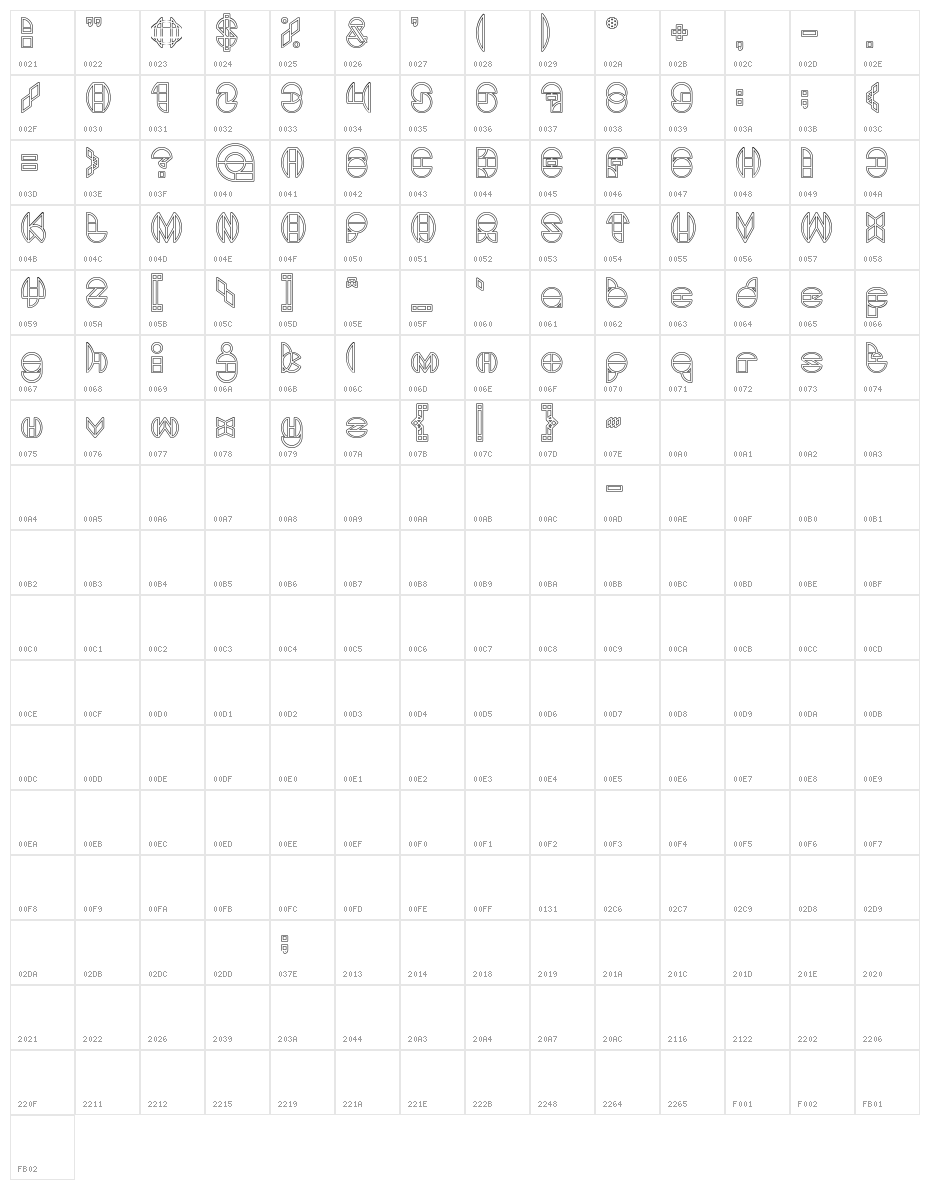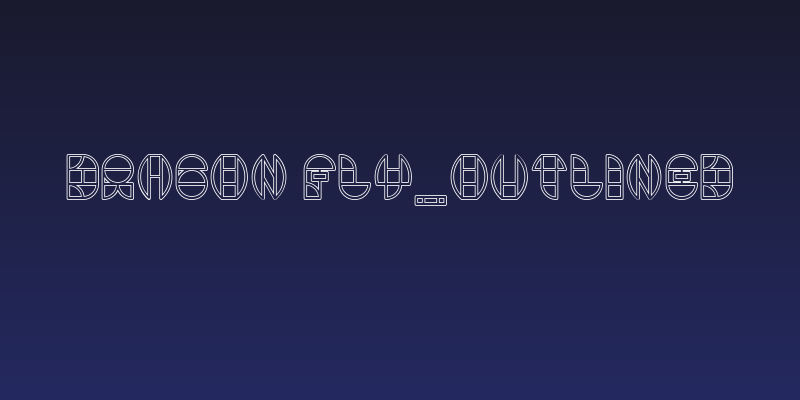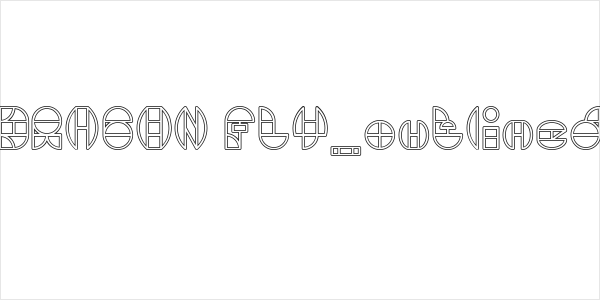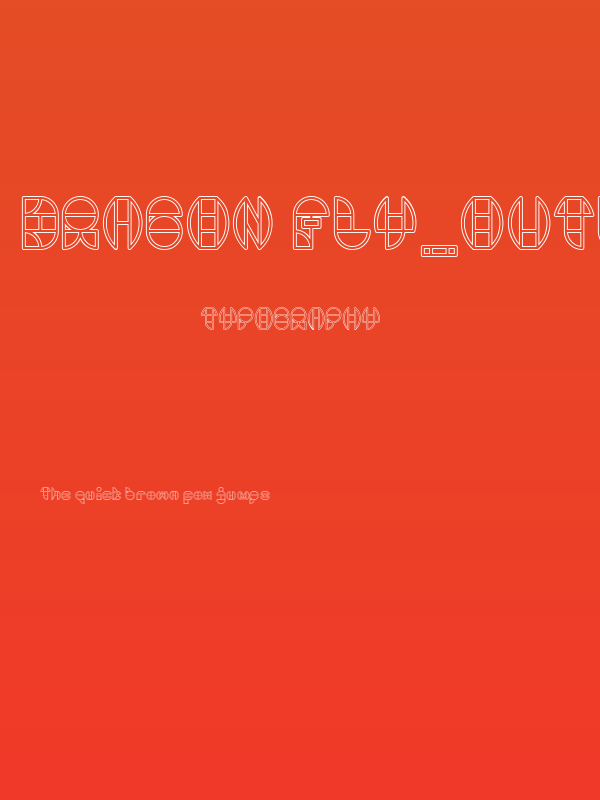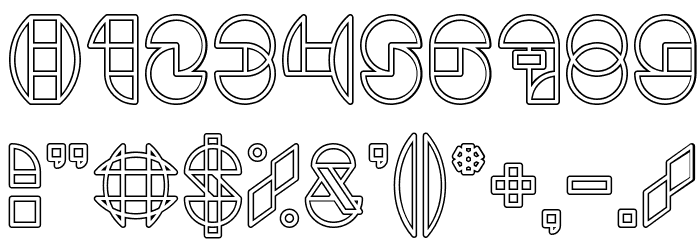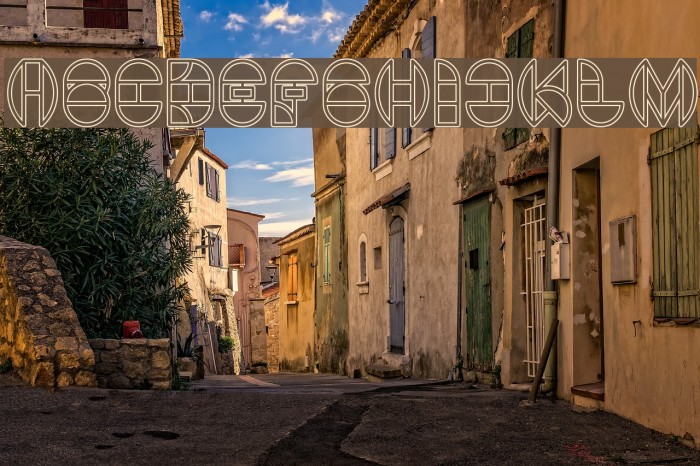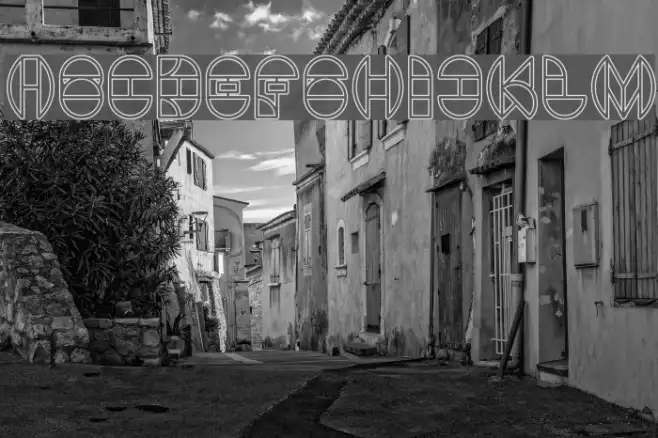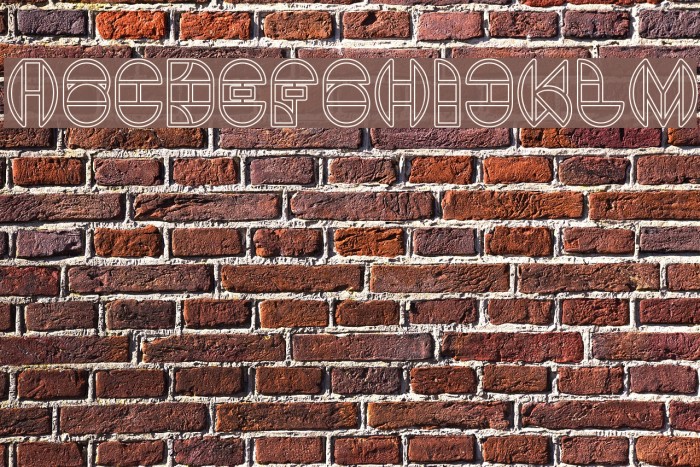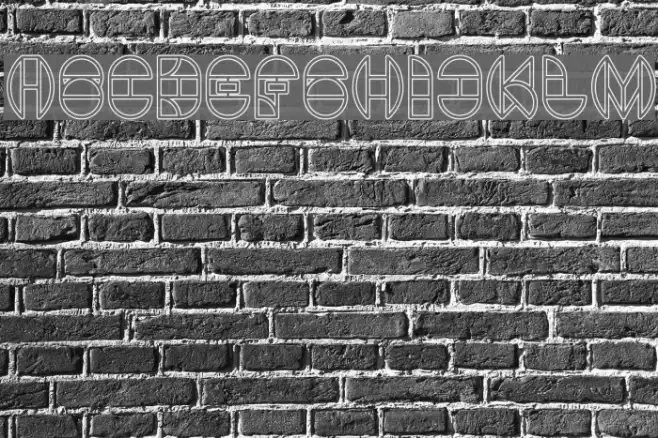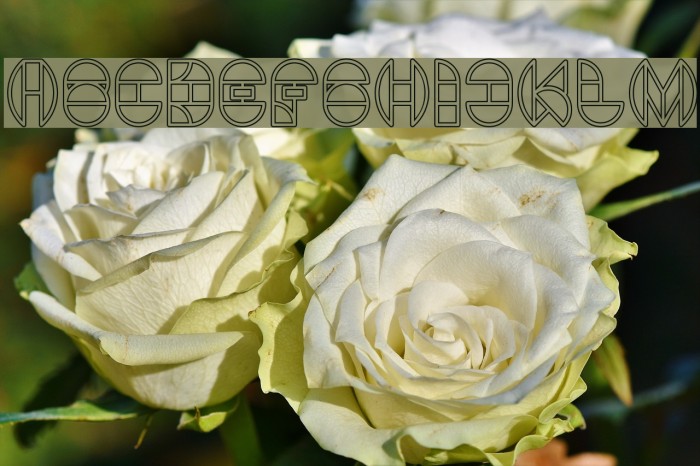
DRAGON FLY_outlined Font
DRAGON FLY_outlined Description
This font features a unique and futuristic design with geometric shapes forming each character. The letters are outlined, creating a hollow effect that emphasizes their modern and abstract style. The uppercase and lowercase letters maintain a consistent design language, with circular and angular elements blending seamlessly. Numbers and special characters follow the same geometric pattern, ensuring uniformity across the entire set. The font's distinct style makes it stand out, suitable for creative and innovative projects.
| Proposed Projects | Ideal for sci-fi themed designs, tech branding, modern posters, and digital artwork. |